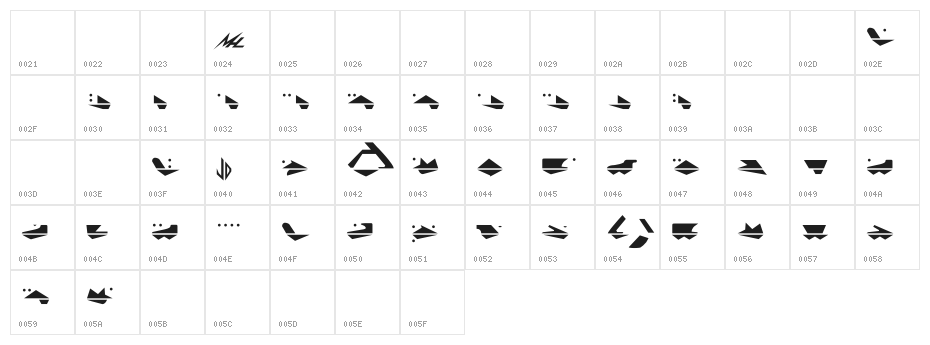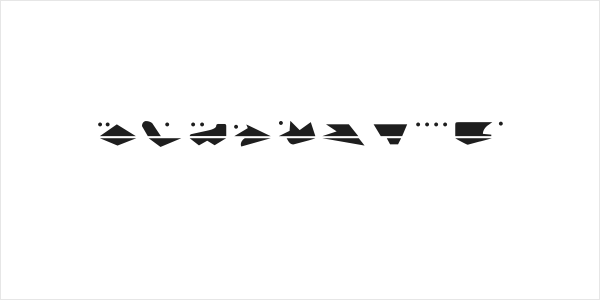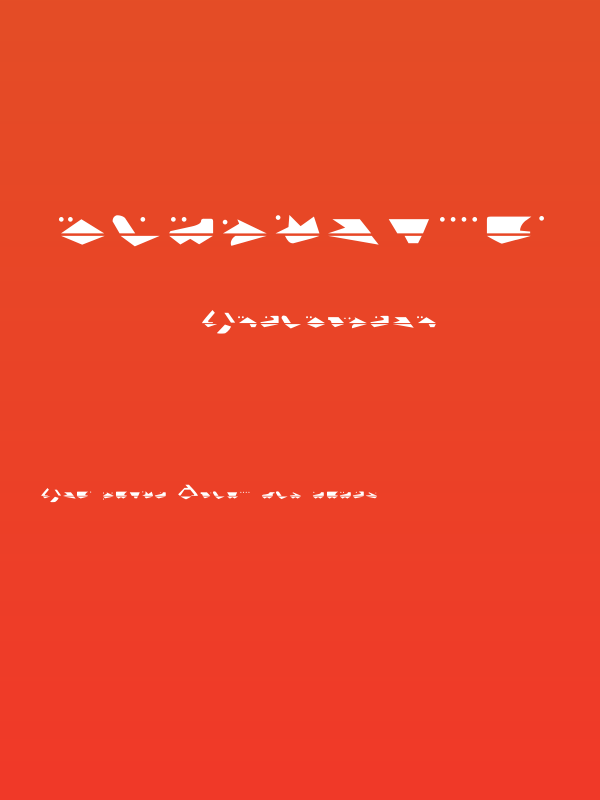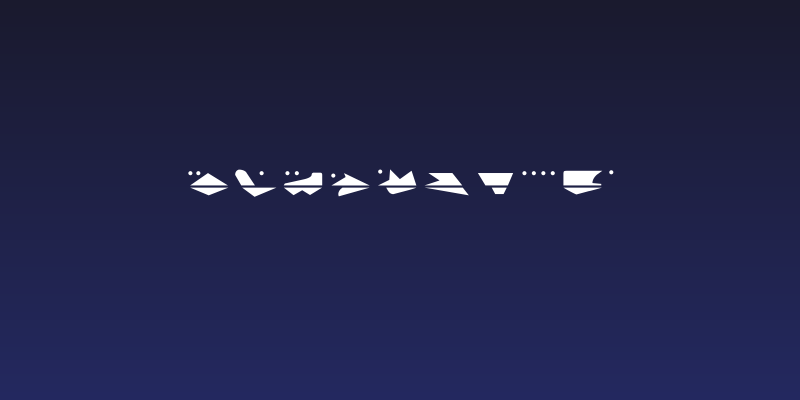
G.Machine Font
G.Machine Description
This font features a highly abstract and geometric design, characterized by sharp angles and a futuristic aesthetic. Each character is composed of bold, angular shapes that create a sense of movement and dynamism. The font lacks traditional letterforms, opting instead for a series of interconnected lines and shapes that suggest a modern, technological influence. The overall appearance is striking and unconventional, making it suitable for projects that require a distinctive and avant-garde visual impact.
| Use Case | Logos, Posters, Digital Art |
| Proposed Projects | Ideal for sci-fi themed designs, technology branding, video game interfaces, and modern art installations. |